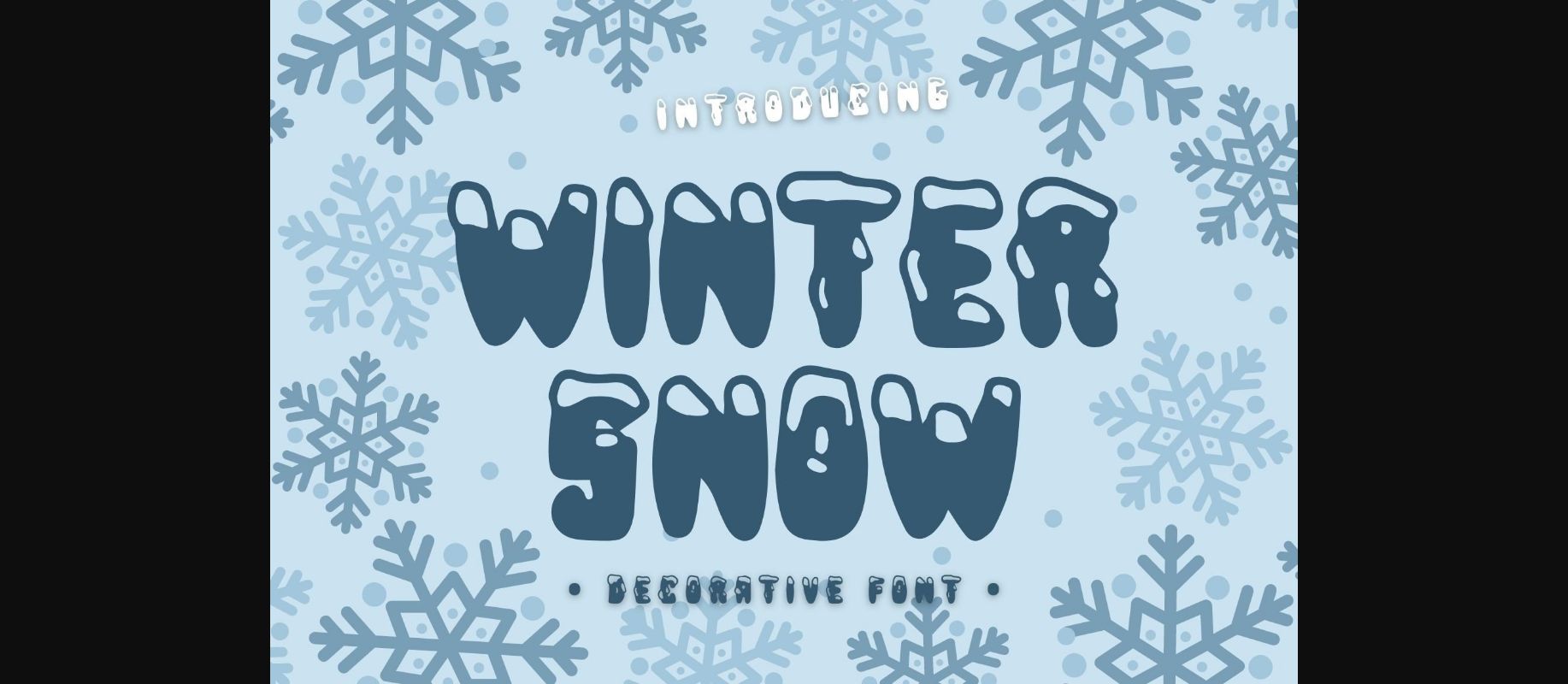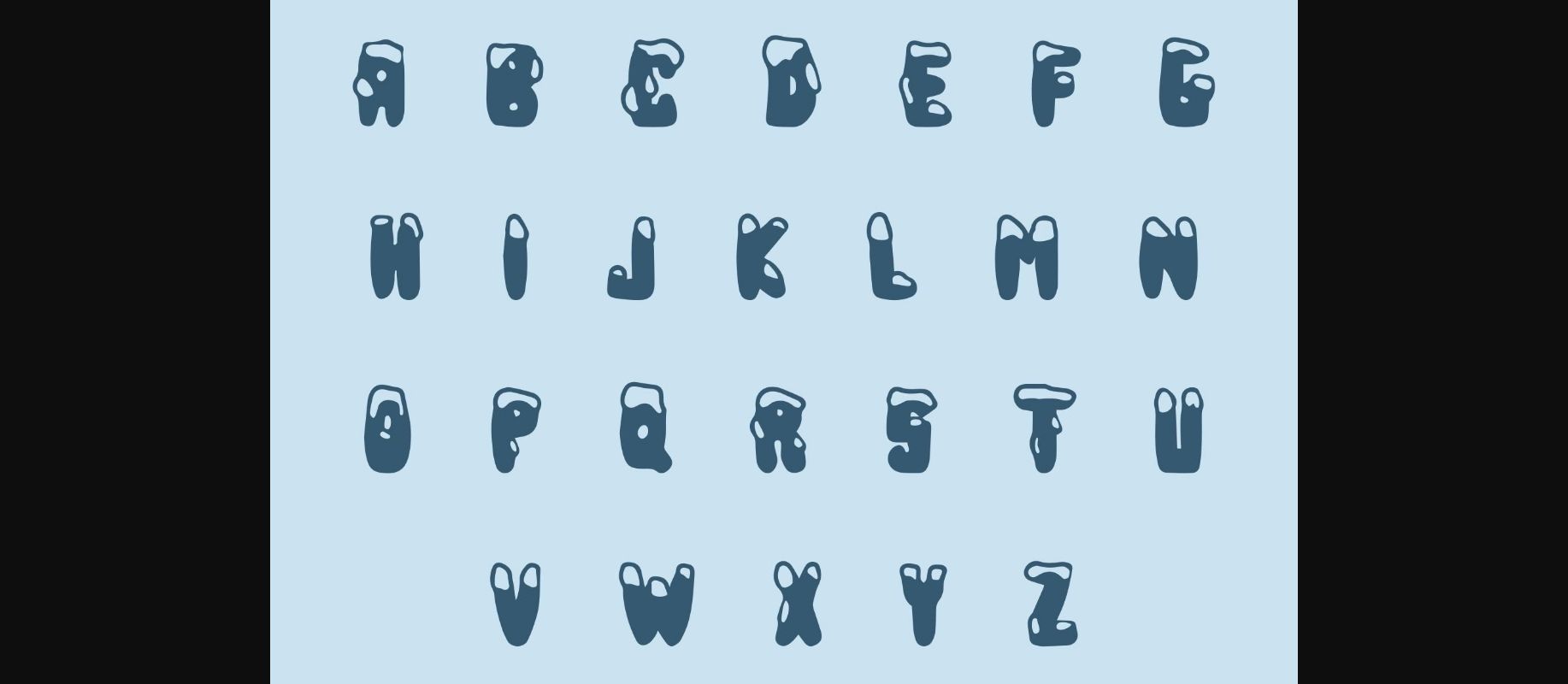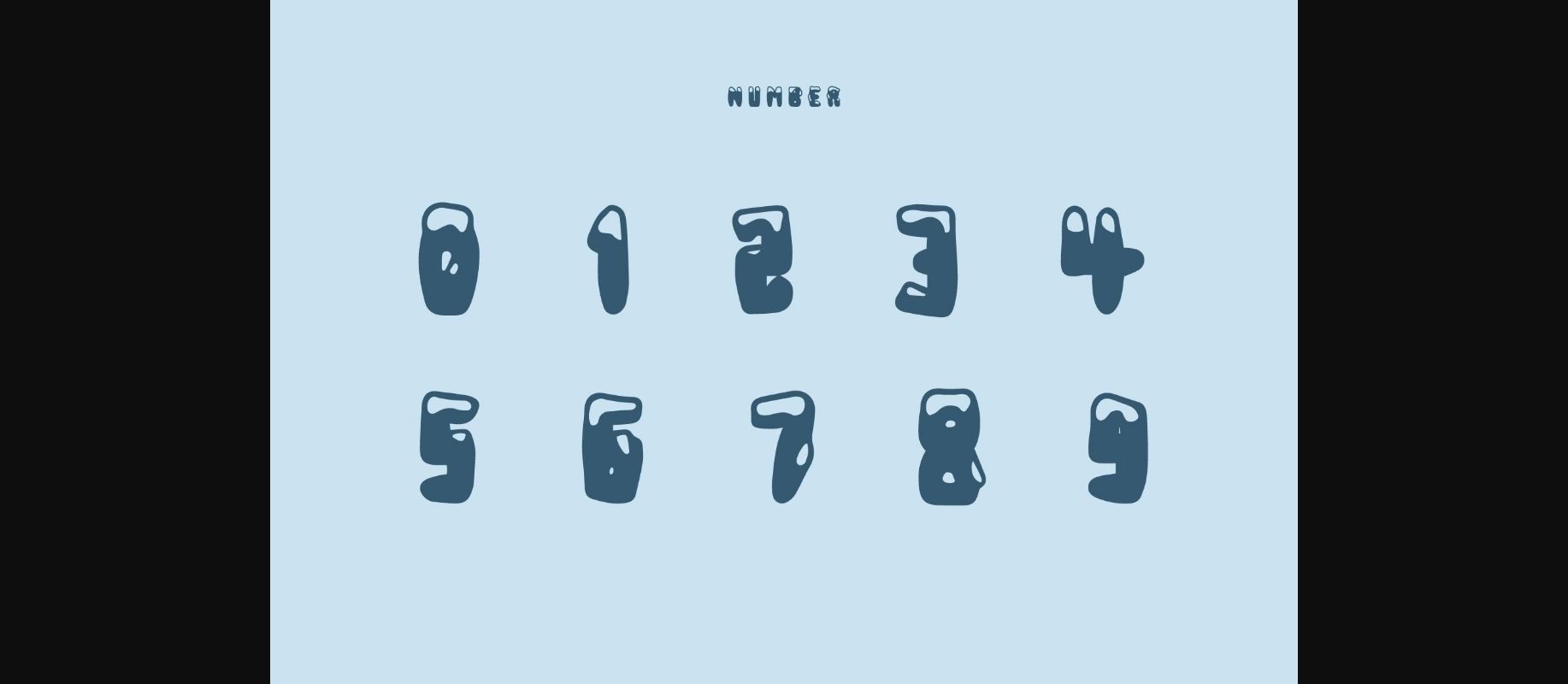
About Winter Snow Font
Winter Snow is a cool and fun winter decorative font. It embodies playfulness and authenticity and is the perfect choice for all your favorite Christmas projects, or even for blog posts, logos, branding, ads, invitations, greeting cards, planners, photo albums, decorations, and much more. Add it to any of your designs, and enjoy the results!